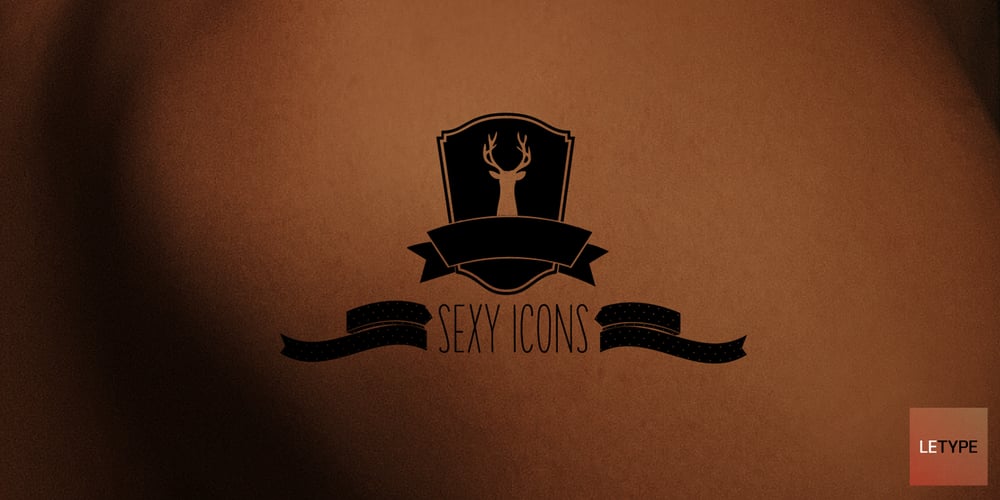
Only You Sexy Icons Font Family was designed by Gabriel de Souza and published by LeType. Only You Sexy Icons contains 6 styles and family package options. The Icons developed to the font Only You Sexy make reference to hipsters concept a recurring nostalgia and a recovery of an almost forgotten romanticism. Bring all that romance back. Bring the sensuality in your works and projects. The font has more than 300 icons. Also available Only You Sexy.